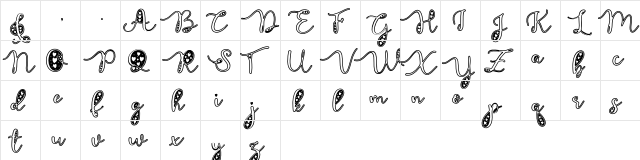
Otmeal Regular
Design Context for Otmeal Typeface
Otmeal is a composed and adaptable typeface that performs quietly and consistently across a wide range of design contexts.